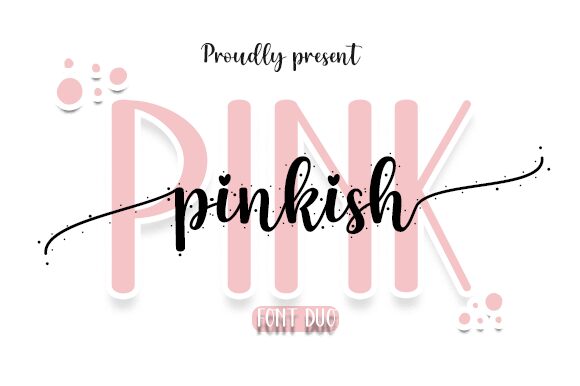
Pinkish
Pinkish, a charming creation by font designer Danar Nugroho, is a delightful cute handwritten font that exudes femininity and embodies the essence of Valentine's Day. Its playful strokes and whimsical curves add a touch of sweetness to any design project.
Perfect for wedding invitations, greeting cards, love-themed branding, or romantic blog headers. Let Pinkish enchant your audience with its lovable charm and bring a touch of romance to your creative endeavors.